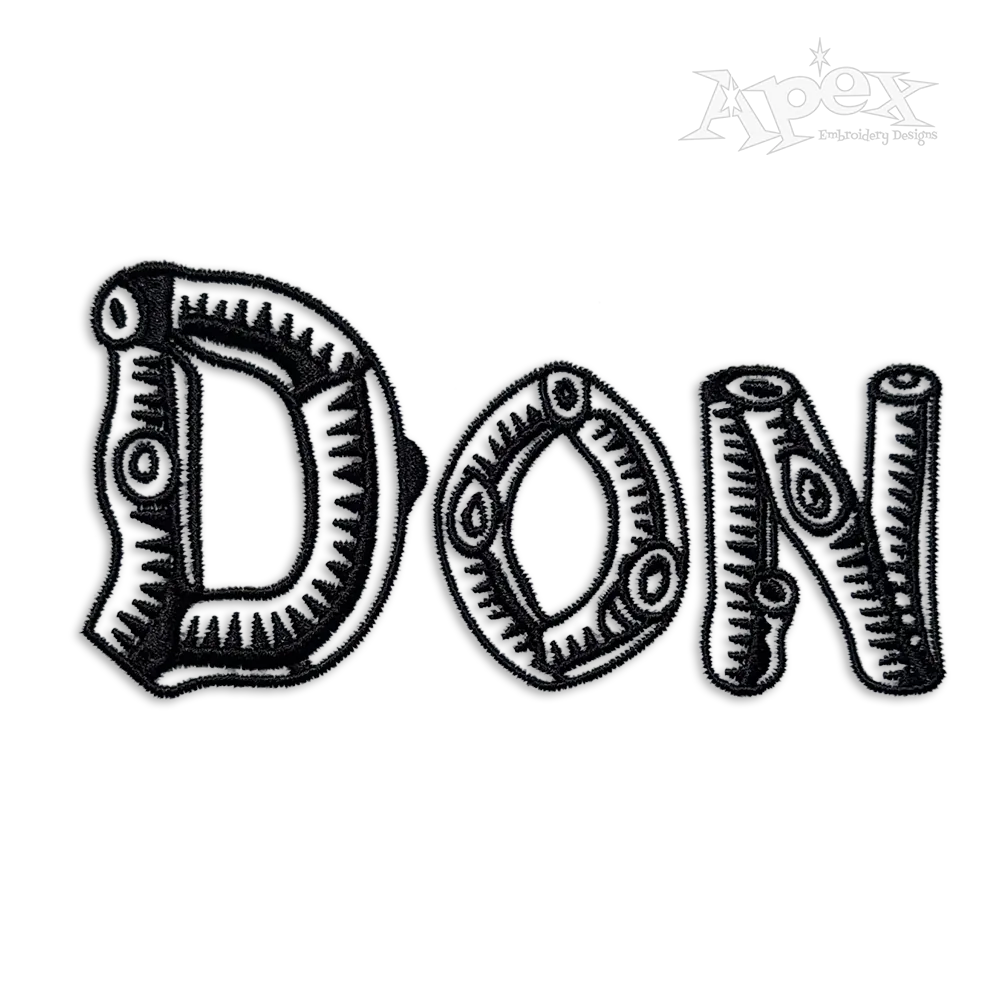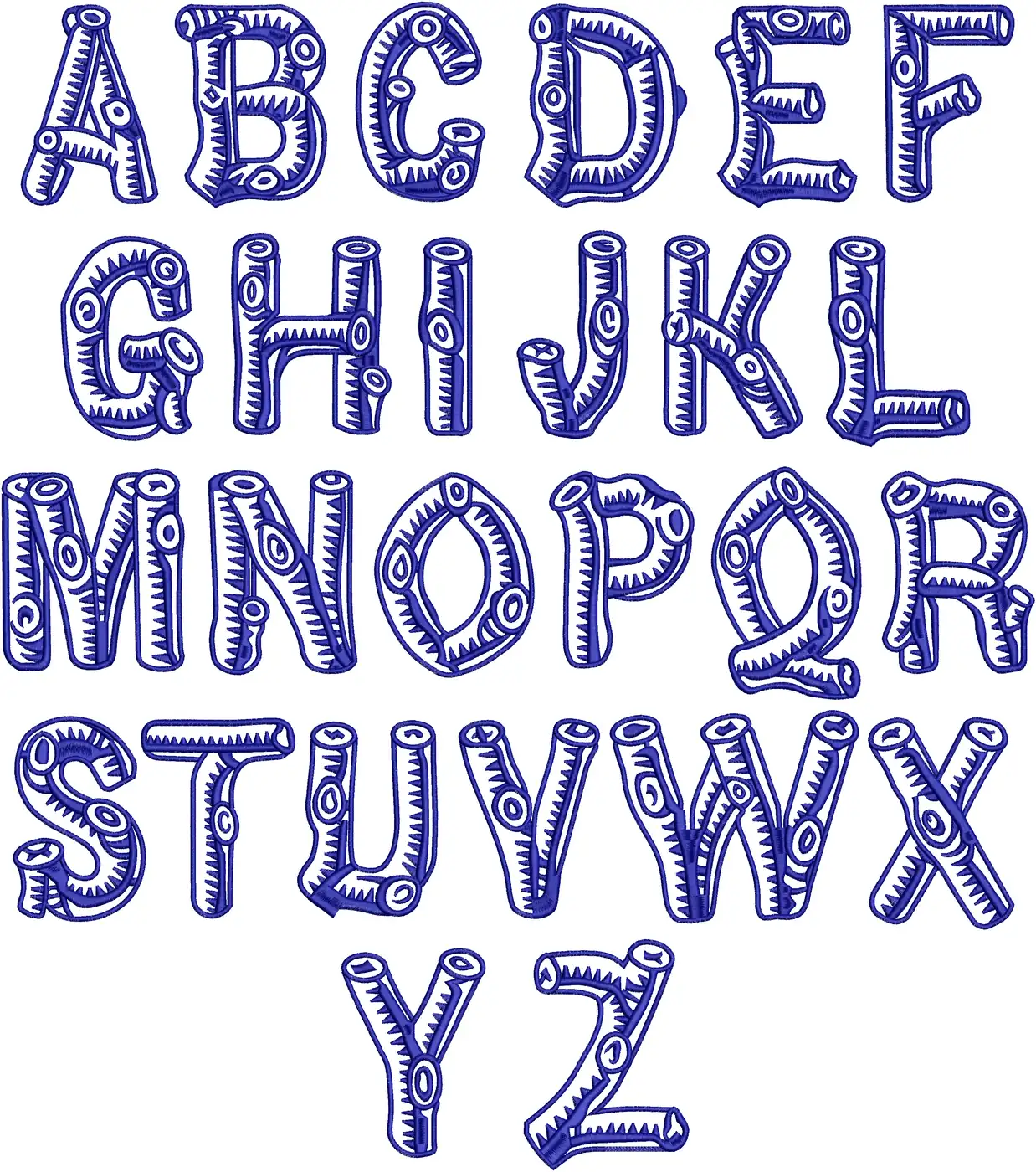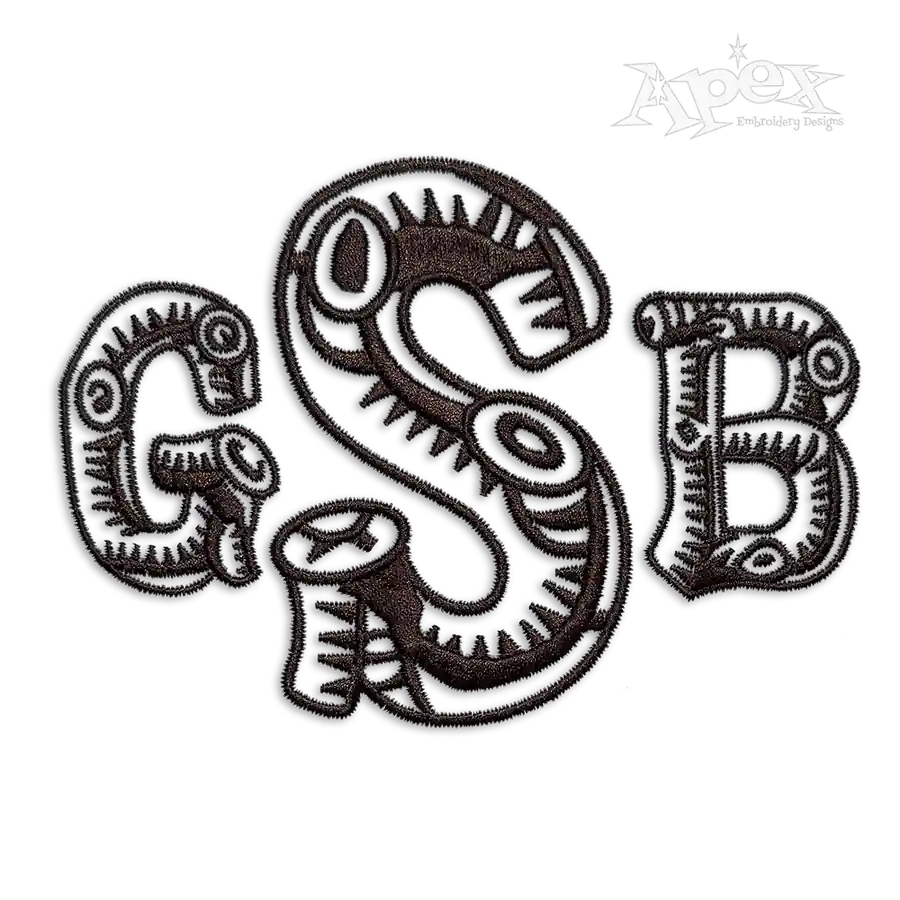
Tree Log Embroidery Font
Born from crisp morning walks along mist-veiled mountain trails and inspired by the weathered grace of alpine timber, the Tree Log Embroidery Font captures the untamed soul of the woodland wilderness. We designed this typeface to feel genuinely hewn from forest boughs, balancing the rustic charm of hand-carved trail markers with modern stitch architecture. Each letter blooms with organic bark contours and subtle limb nodes, evoking cozy hearthside evenings, pine-scented breezes, and timeless wilderness retreats. Whether creating bespoke gifts for modern adventurers or curating warmth for a lakeside cabin, this alphabet infuses every thread with grounded, earthy authenticity.
Digitized with precision scaling to preserve organic woodgrain silhouettes across varying stitch fields, this collection provides versatile sizing options for small accents up to commanding focal monograms:
- 2.0 Inch: Sized beautifully for pocket placements, tailored cuffs, camp hats, and subtle tabletop linens.
- 3.0 Inch: A versatile mid-size ideal for tote bags, bath sheets, sweater yokes, and personalized stocking accents.
- 4.0 Inch: A bold, architectural statement size designed for decorative cabin pillows, throw blankets, and jacket backs.
Project Ideas for Tree Log Embroidery Font
- Lodge & Cabin Home Accents: Stitch single rustic initials onto heavyweight wool throw blankets, fringed camp cushions, or tailored burlap table runners.
- Bespoke Outdoor Apparel: Monogram the chest yokes of chore coats, heavyweight flannel shackets, waxed canvas field jackets, and fleece vests.
- Heirloom Bar & Tableware: Personalize natural oatmeal linen cocktail napkins, hemstitched guest towels, and canvas wine totes for mountain-view dinner parties.
- Personalized Camping & Adventure Gear: Elevate rugged canvas duffels, boot bags, utility roll-ups, and gear sacks with durable, outdoorsy family names.
- Holiday & Gifting Keepsakes: Create custom stockings, heirloom ornaments, and personalized gift tags for nature enthusiasts and cabin hosts alike.
- Jacket Center Backs & Yokes: Use the commanding 4-inch scale centered across upper jacket panels for an artisanal trail-ready insignia.
- Corner Diagonal on Table Linens: Angle a 2-inch or 3-inch letter 1.5 to 2 inches from the hemmed corner of natural flax or rustic linen napkins for casual elegance.
- Left Chest Placements: Position the 2-inch or 3-inch glyphs approximately 7 to 9 inches down from the shoulder seam and centered between the placket and side seam on flannel and knitwear.
- Throw Pillow Centers: Feature a bold 4-inch standalone initial directly at the geometric center of canvas or tweed pillow covers to anchor a room?s rustic decor.
Tree Log Embroidery Font Craft & Letterform Details
Translating the irregular, textured beauty of forest timber into machine embroidery requires an artisanal approach to stitch planning. Rather than treating these letters as rigid geometric forms, we digitized them with dynamic stitch paths that trace the natural growth rings and bark striations of living wood. Curved limbs, simulated bark nodes, and cut-branch cross-sections are sculpted through carefully measured pull-compensation and tailored density settings, ensuring the letters stitch flat and true without puckering your fabric.
The structural underlay creates a firm, reliable foundation beneath the visible satin and outline runs, allowing the organic notches and natural branch silhouettes to emerge with striking clarity. Corners and limb intersections are meticulously mapped to minimize thread buildup while preserving the charming, hand-notched character of rustic log construction. The result is a tactile, dimensional letterform that feels rooted in the craft of fine woodworking and built for a lifetime of heirloom stitchery.